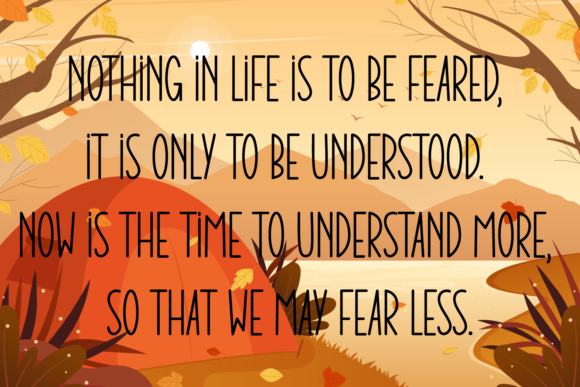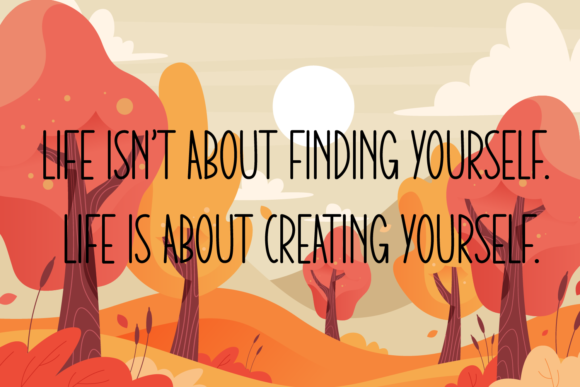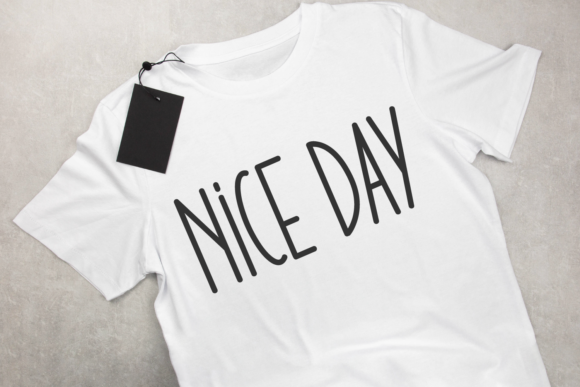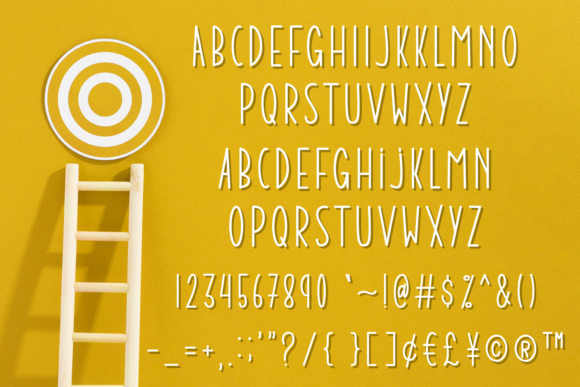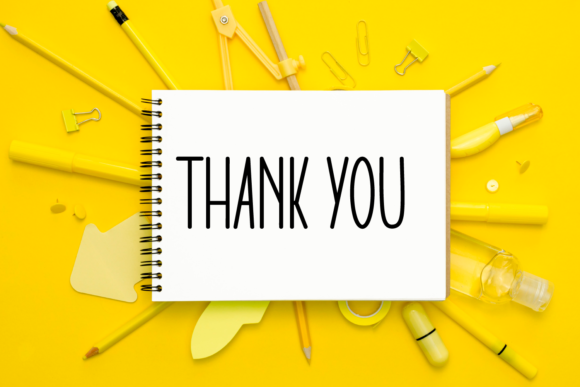
Discover the Magic of Boho Auntumn Font
Have you ever stumbled upon the perfect font that instantly sparks your creativity? For me, it’s the little moments like these that make design so magical. I remember spending hours browsing through font libraries, searching for the perfect combination of style and versatility. And then, it hit me – Boho Auntumn Font. This cute, simple, and clean sans serif font has become my go-to companion for any creative project.
Whether you’re a graphic designer, a writer, or simply a creative enthusiast, Boho Auntumn Font is an incredible asset to have in your font library. Its versatility and effortless charm make it perfect for any topic, from whimsical illustrations to sleek digital interfaces. With Boho Auntumn Font, you’ll be able to elevate any creation and take your designs to the next level.
Boho Autumn Font Key Features
- Font Family: Boho Autumn is a unique, handwritten font with a bohemian and autumnal theme.
- Unique Characteristics: Features a mix of elegant and whimsical elements, with subtle imperfections to give it a handmade feel.
Boho Autumn Font Review
As a designer, I was excited to dive into the Boho Autumn font, but my experience was a mixed bag. Here’s my honest take.
- ✨ Unique and eclectic feel that’s perfect for autumn-themed designs.
- ✨ Beautifully crafted ligatures and swashes that add a touch of elegance.
- ✨ The font’s irregularity and imperfections make it feel handmade, which is perfect for those seeking a more organic look.
- ⚠️ Limited font size range, which can make it difficult to use in larger or smaller text.
- ⚠️ Some letters, particularly ‘g’ and ‘q’, can be quite challenging to read in certain contexts.
- ⚠️ Not ideal for use in body text, as it can be overwhelming and difficult to read in large quantities.
While the Boho Autumn font has its charm, it’s best suited for decorative or accent uses. Its unique feel and beautifully crafted ligatures make it a great choice for autumn-themed designs, but its limitations make it less versatile than other fonts. If you’re looking for a font that’s perfect for a specific project, this might be the one. However, for general use, you may want to consider other options.
Use the Boho Autumn font to add a touch of bohemian charm to your designs.
Pair the font with earthy colors and natural textures for a cohesive look.
The Boho Autumn font is perfect for:
Home decor and interior design projects
Photography and art projects
Any design project that requires a bohemian or rustic feel